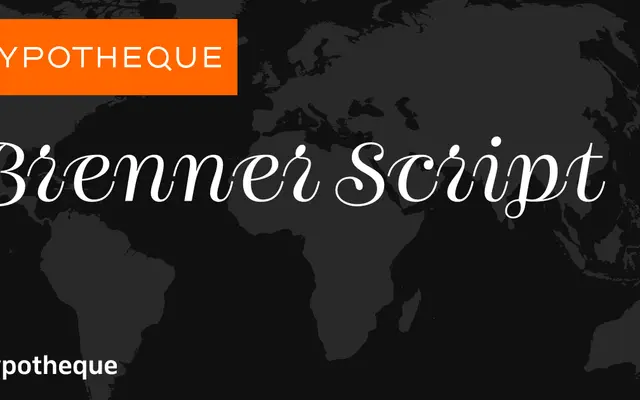
Brenner Script
A variable script subfamily within Typotheque's Brenner superfamily, spanning four weights from Light to Bold.
Brenner Script is the handwritten arm of the Brenner superfamily, offering upright script letterforms in four weights from Light to Bold, all available as a single variable font file. The Latin character set covers standard text needs and integrates with the broader Brenner family for mixed-style typesetting. The variable format makes weight selection continuous rather than stepped.
Classified as a script typeface; part of the Brenner superfamily from Typotheque, available in variable format with upright script letterforms across four named weights.